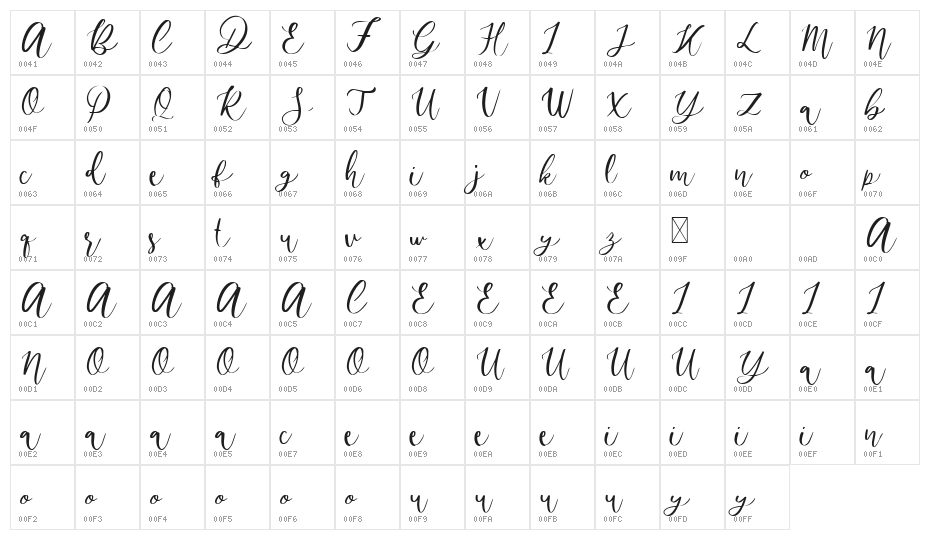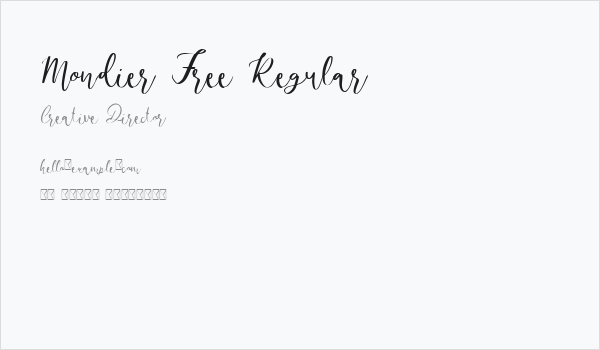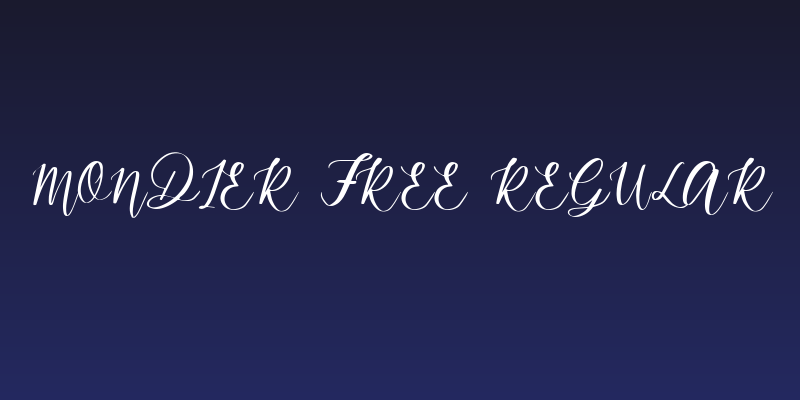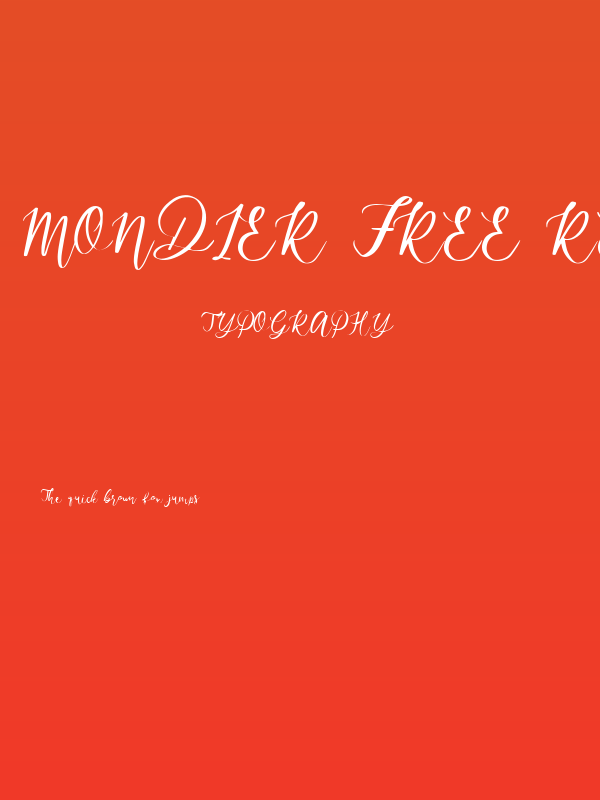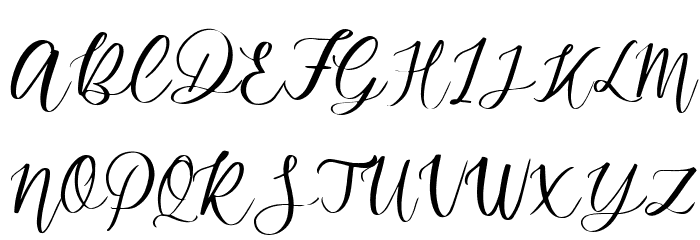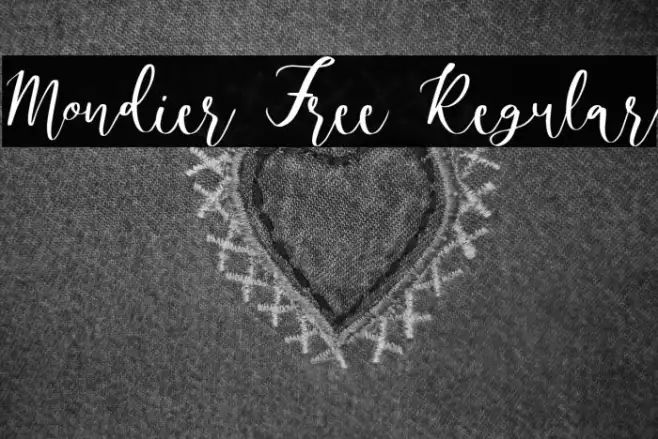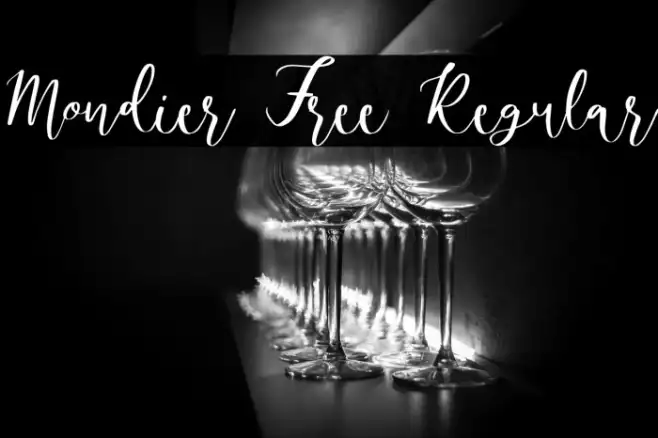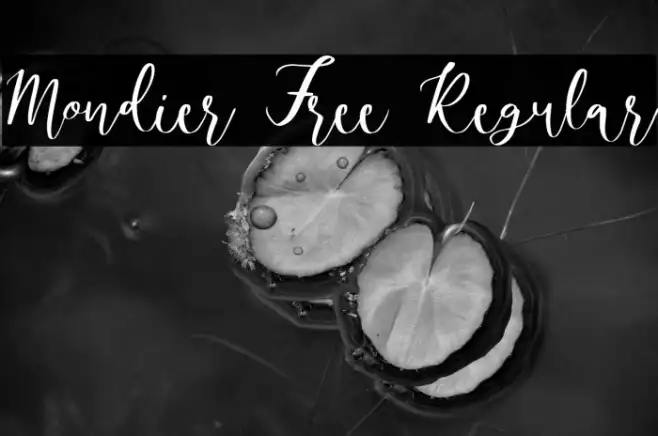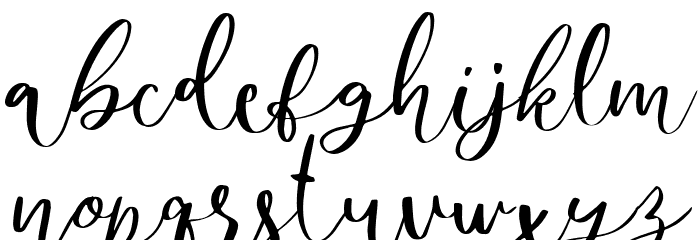
Mondier Free Regular Font
Mondier Free Regular Description
This font exudes a graceful and elegant script style, characterized by its flowing, cursive letterforms. The uppercase letters are ornate with sweeping curves and loops, while the lowercase letters maintain a consistent fluidity that enhances readability. The strokes vary in thickness, adding a dynamic and lively feel to the text. The overall appearance is sophisticated, making it ideal for projects that require a touch of elegance and class. The font's design is reminiscent of traditional calligraphy, yet it maintains a modern twist that makes it versatile for various applications.
| Overall Style | Elegant, Modern |
| Use Case | Headlines, Invitations, Branding |
| Proposed Projects | Ideal for wedding invitations, greeting cards, branding, and elegant packaging designs. |